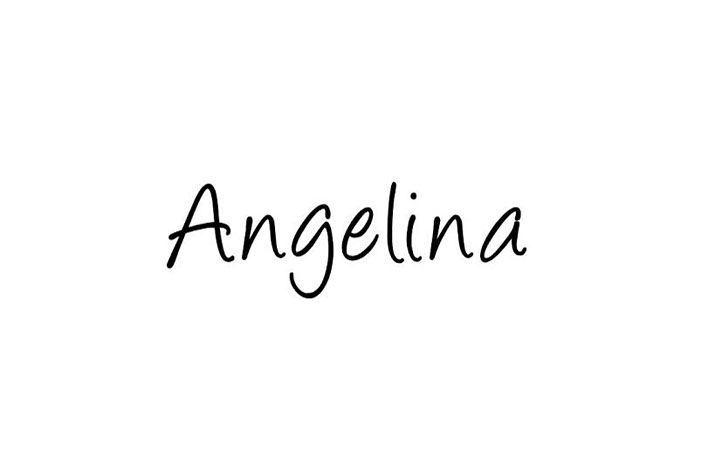
Angelina Font is a beautiful and elegant script handwritten typeface designed by Angie Durbin. You can use it for wedding invitations, greeting cards, signatures, and more.
It is inspired by traditional calligraphy and has a unique, flowing style that makes it perfect for adding a touch of sophistication to any design project. “It comes in a single style that contains 256 glyphs and 7044 binary stored kerning pairs.”
The letters are designed with unique curvature and style that gives them a distinctive look and feel. So, it is also very readable and easy to use.
The font is also versatile and can be used in a variety of design contexts, from logos and branding to social media graphics and web design.
| Style: | Script, Handwritten, Typeface |
It is a beautiful and elegant script handwritten typeface that offers designers a touch of sophistication and style.
- With this help, you can create book designs, signatures, social media posters, birthday cards, invitation cards, special quotes, taglines, book covers, headers, titles, flyers, signs, flyers, stationery, kids’ bags, fashion magazines, emblems, as well as several other things.
Angelina Font supports 67 languages.